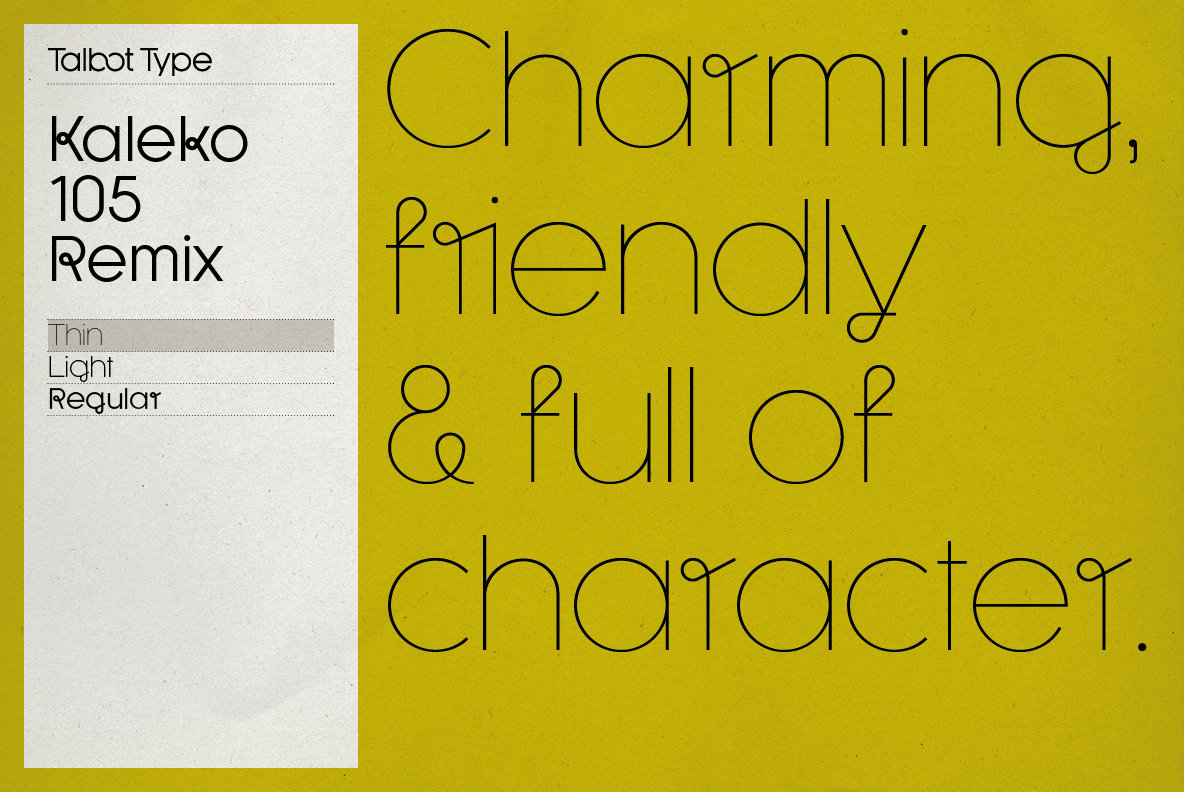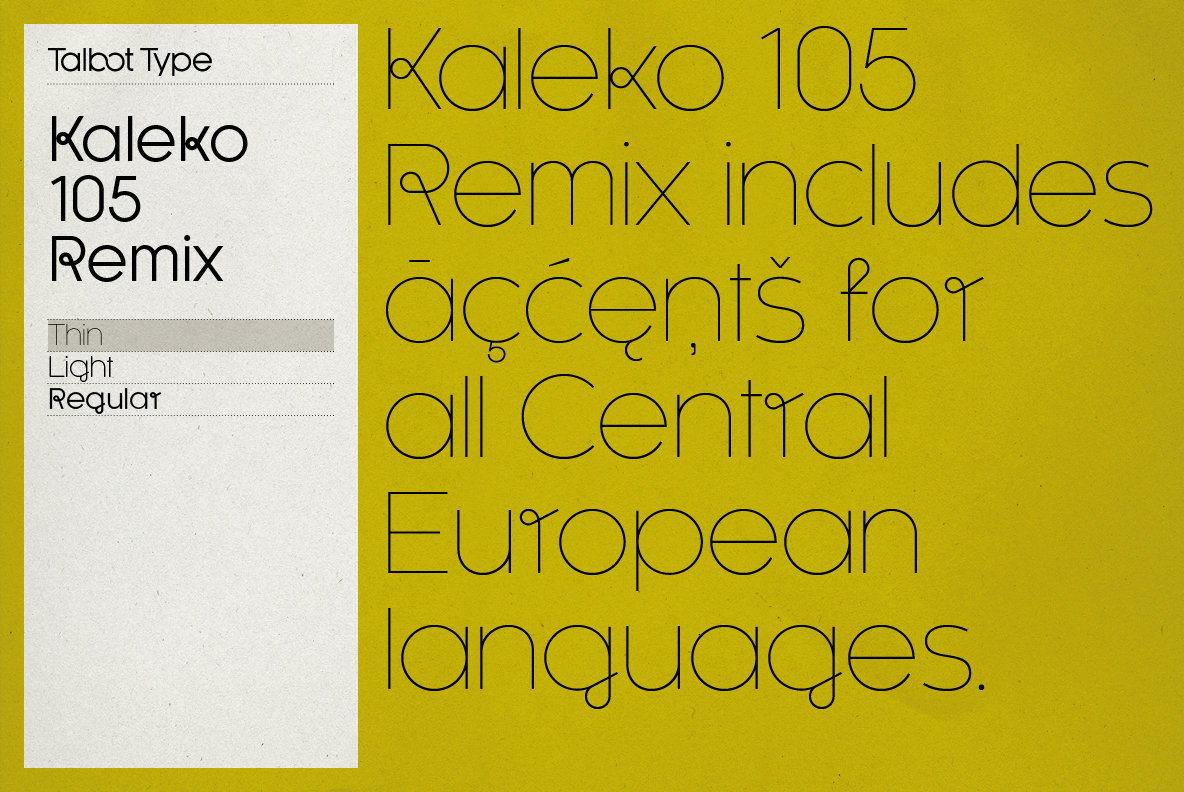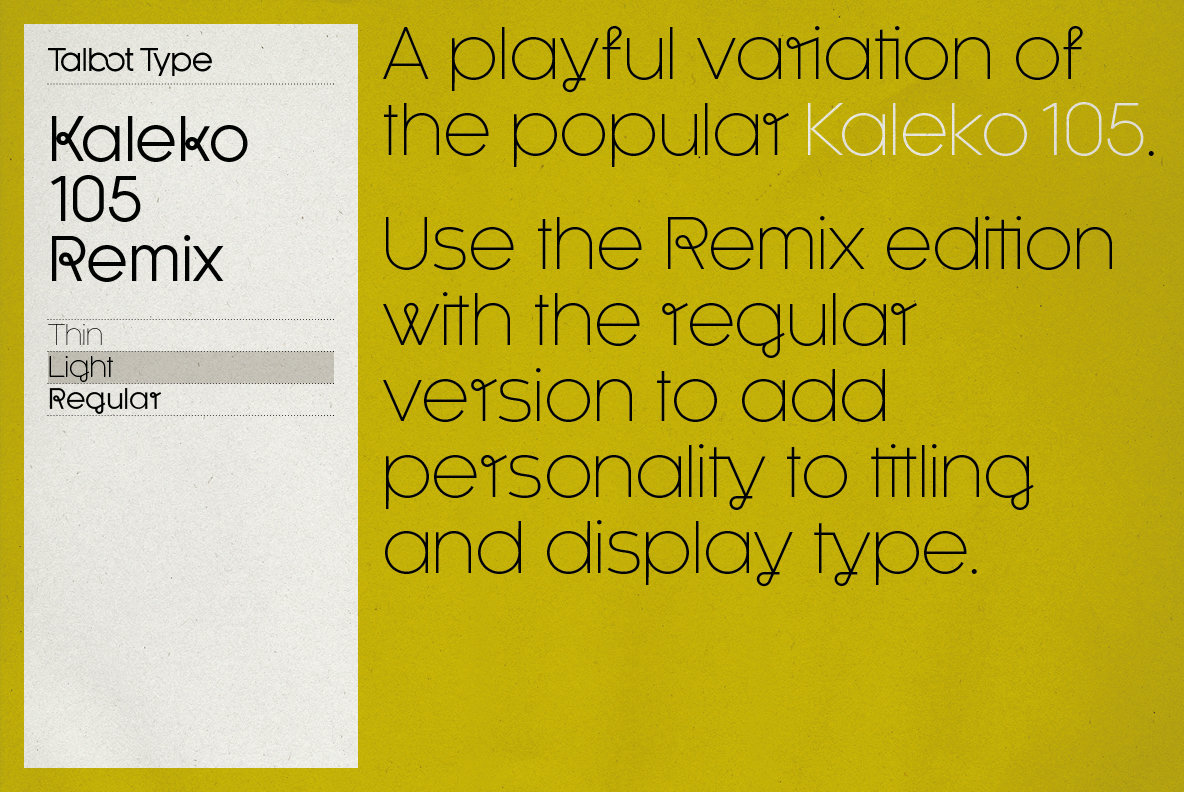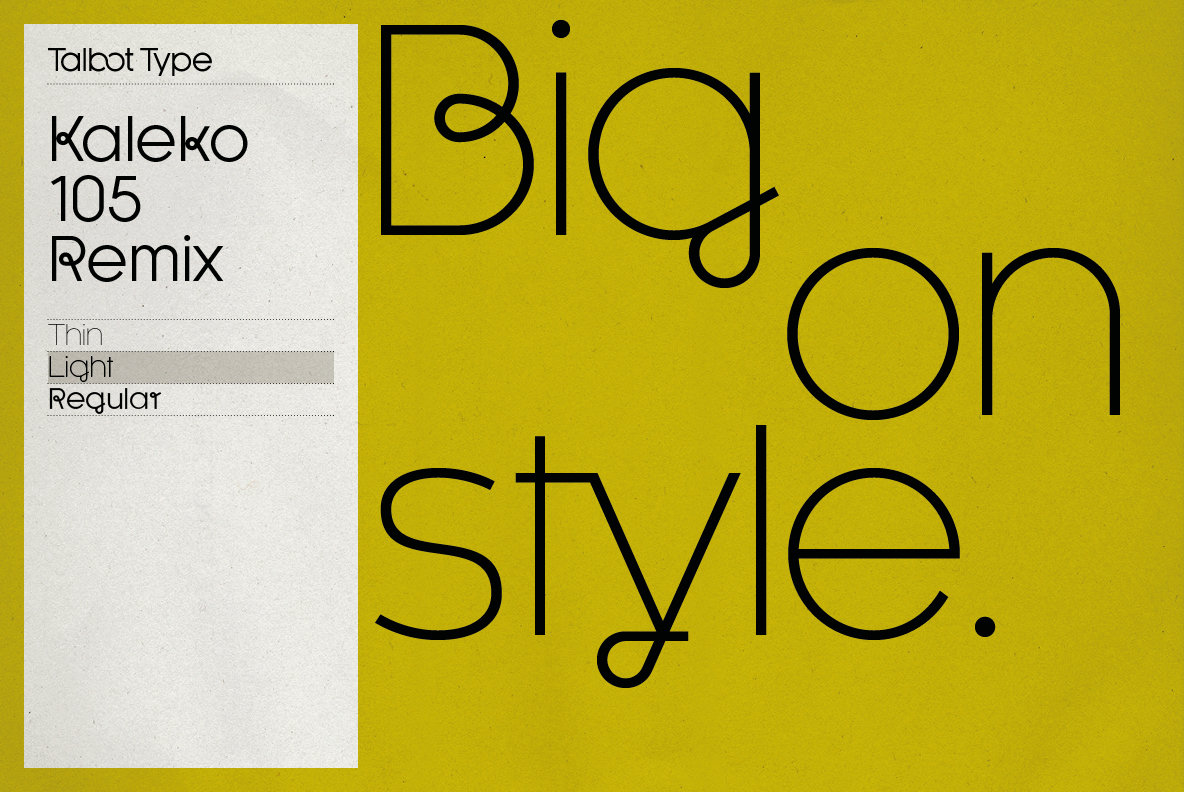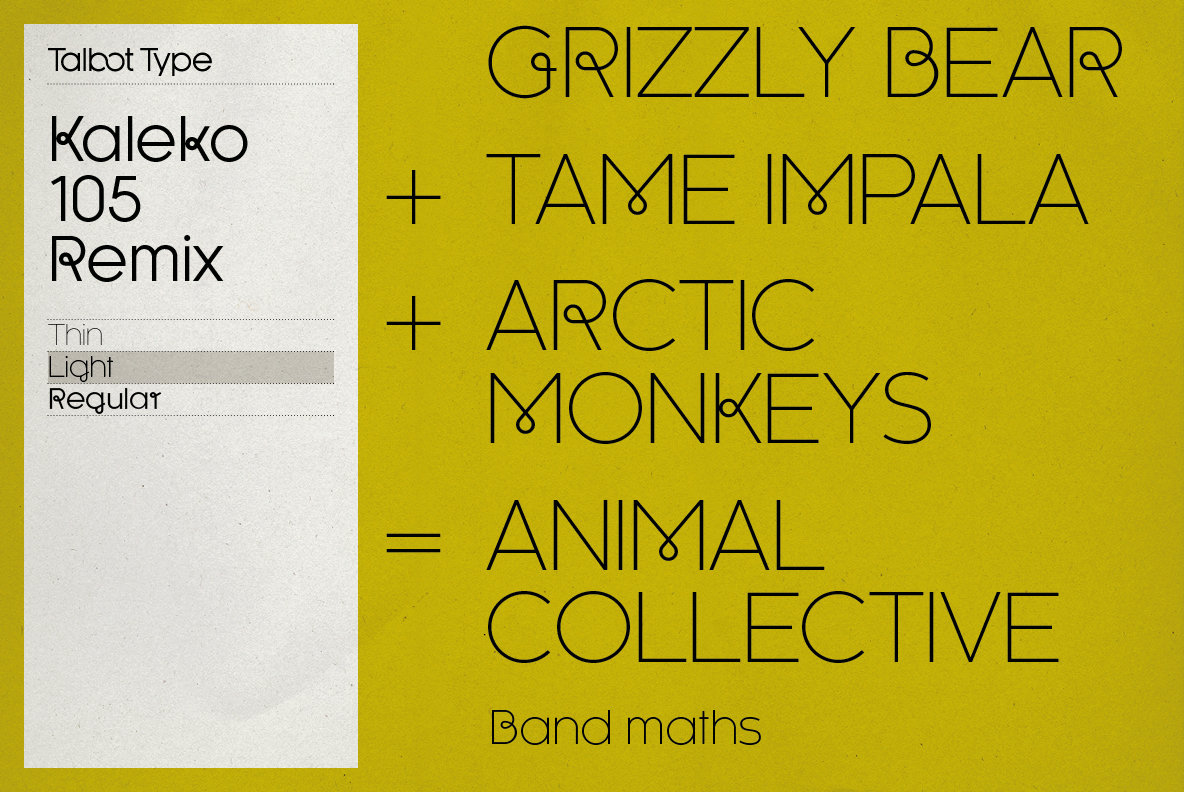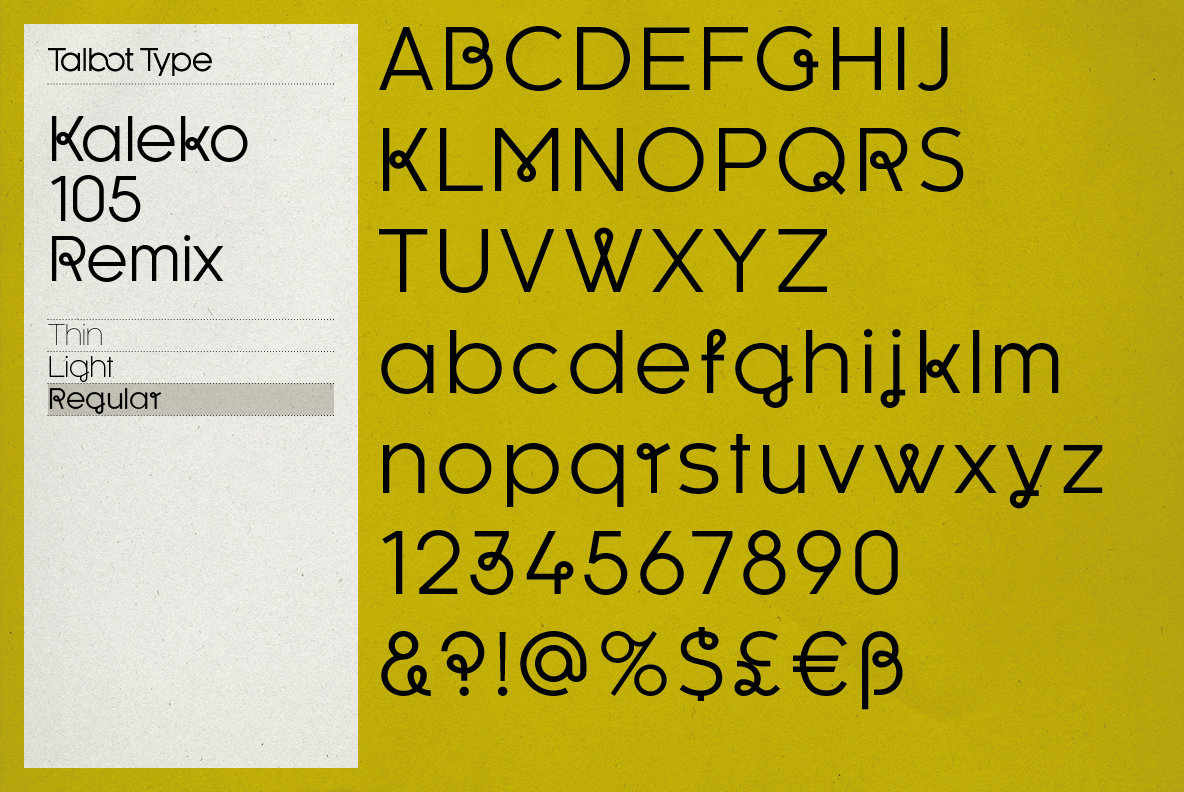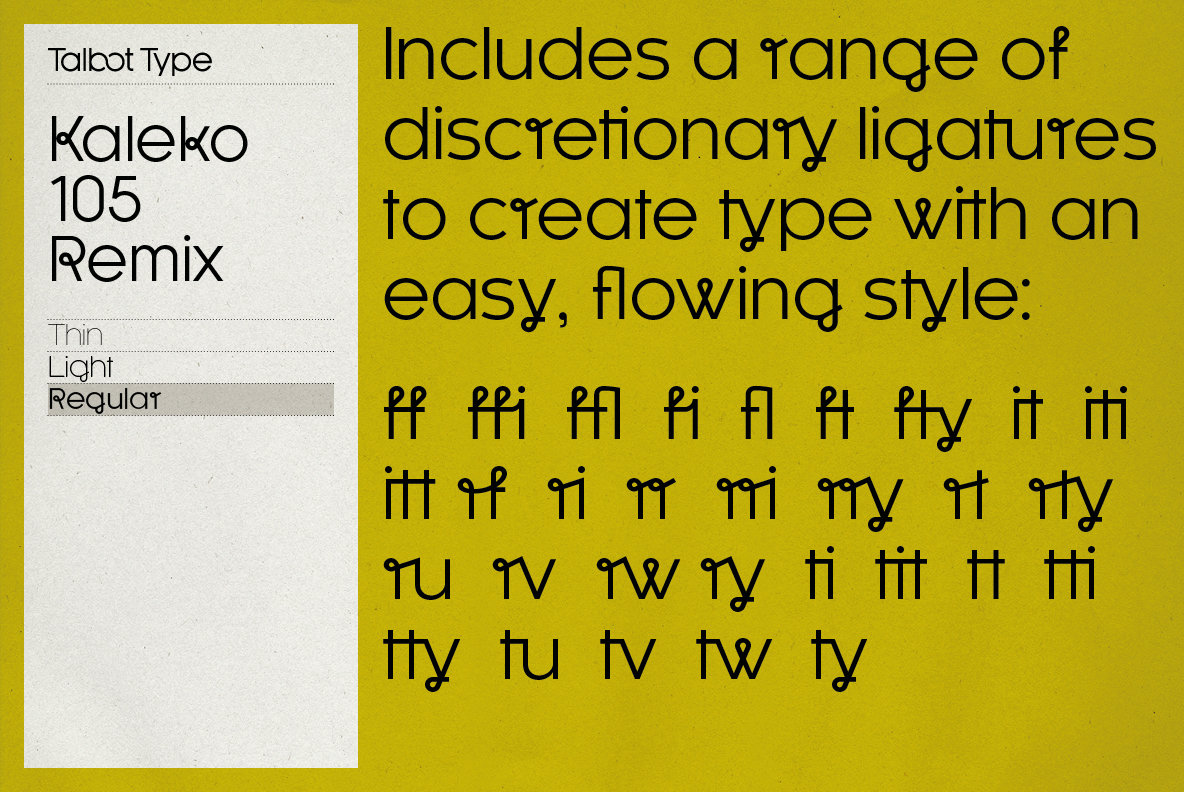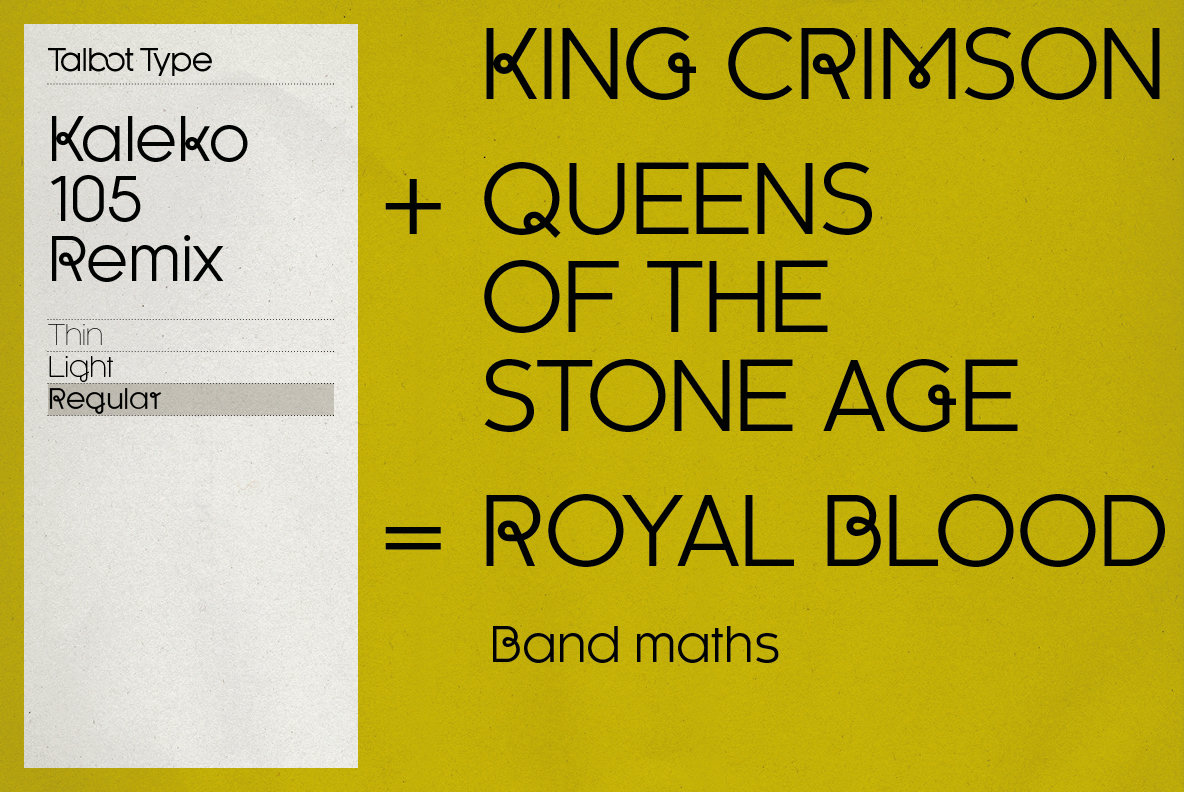
Kaleko 105 Remix 1
A remixed variation, available in three weights, of the popular Talbot Type geometric sans Kaleko 105. The addition of occasional flourishes at the intersections of strokes, in both upper and lower case, adds character charm, making the font a perfect titling font to accompany Kaleko 105, or a display font in its own right. Kaleko 105 Remix features a comprehensive glyph set including accented characters for central European languages.